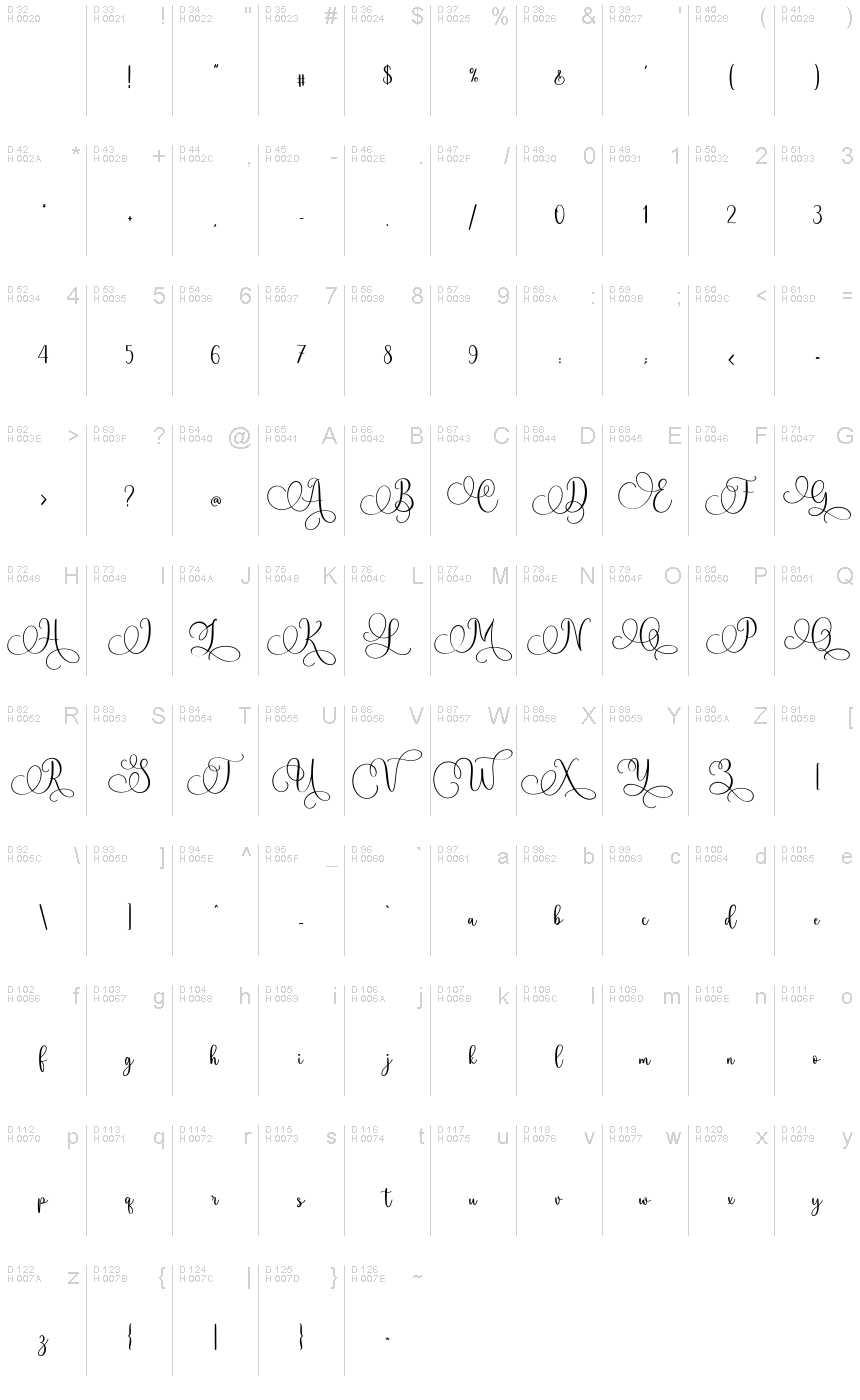
Geshila_DEMO
The Geshila font, crafted by Makashi / MaqsumKS, exudes a captivating calligraphic elegance. With its light and fluid strokes, this typeface evokes a sense of graceful sophistication, inviting the viewer to experience the written word as a delicate art form. The Geshila font's distinctive flourishes and seamless transitions between characters create a harmonious, visually compelling composition that can elevate the aesthetic appeal of any design.
The Geshila font's versatility allows it to seamlessly integrate into a variety of design contexts, from elegant wedding invitations and high-end branding to captivating editorial layouts and enchanting book covers. Its light and airy qualities make it an excellent choice for projects that require a touch of timeless charm and refined aesthetic.